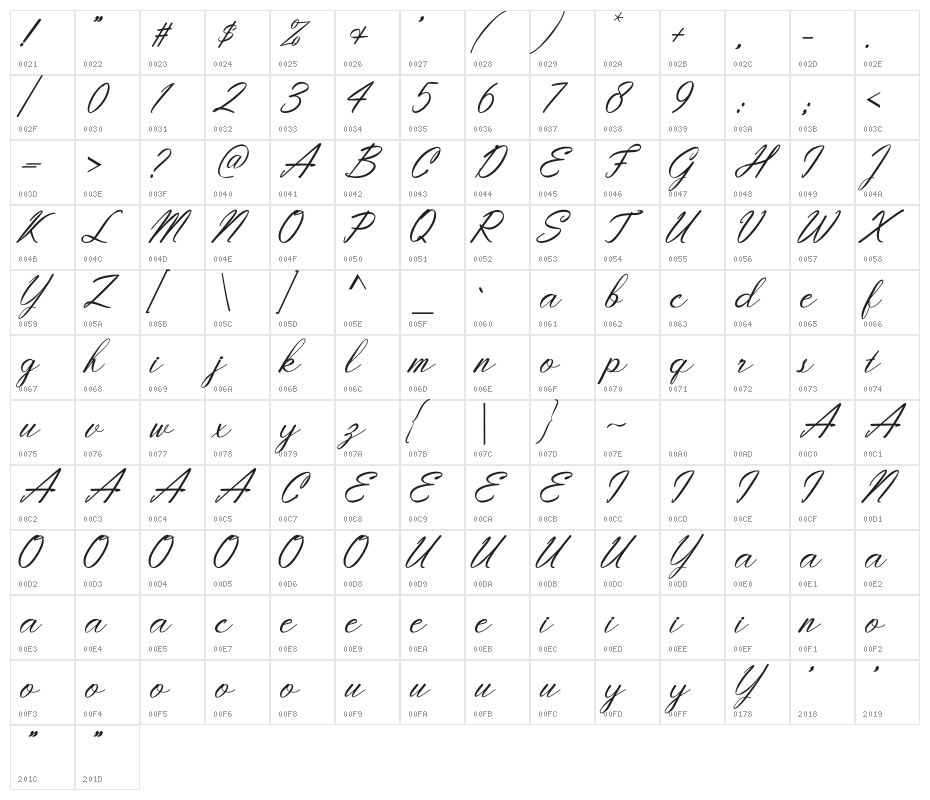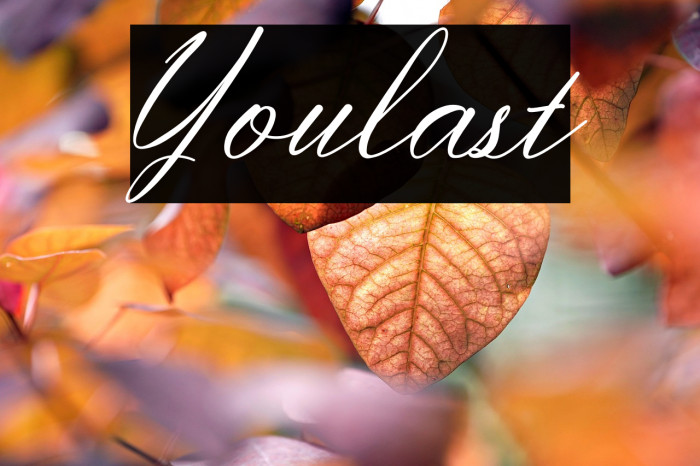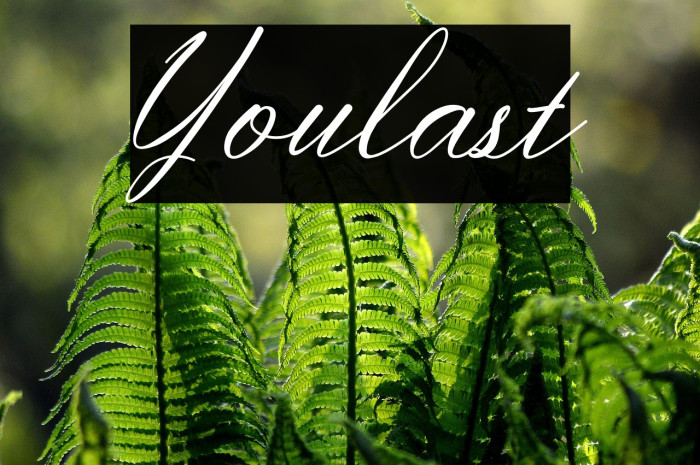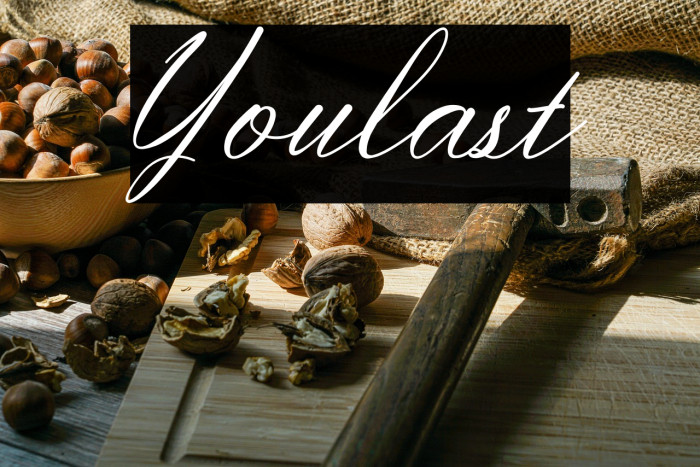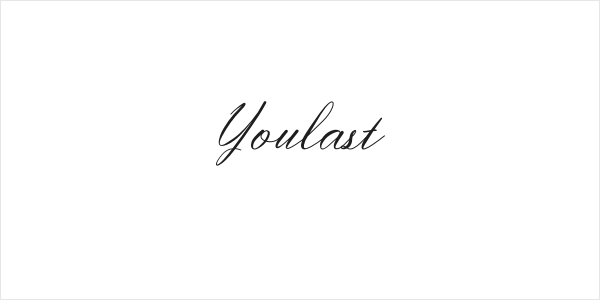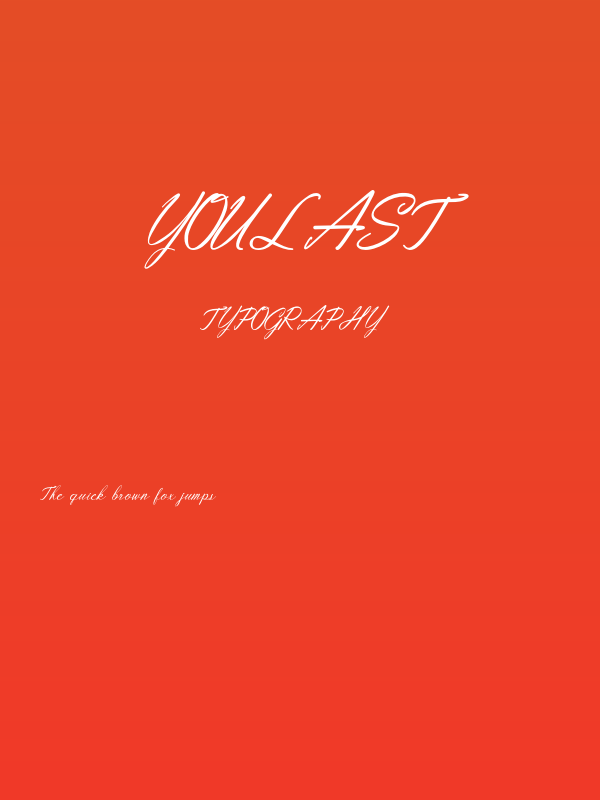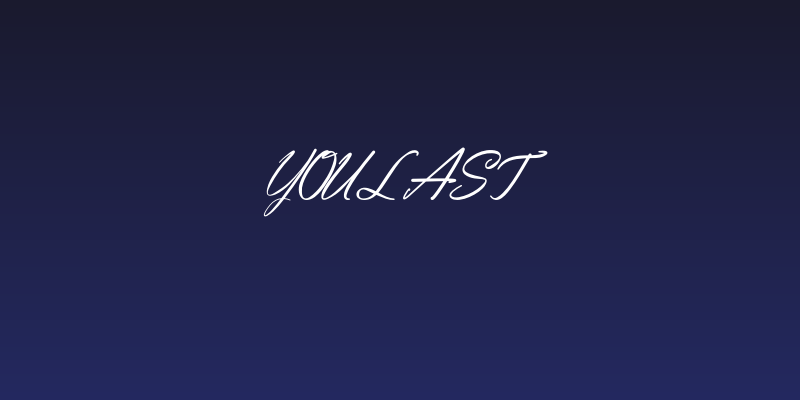
Youlast Font
Youlast Description
This elegant script font features fluid, cursive strokes that mimic the natural flow of handwriting. The uppercase letters are gracefully elongated, while the lowercase letters maintain a consistent, smooth connection. The numerals and special characters complement the overall style with their refined curves and loops. The font exudes a sense of sophistication and charm, making it ideal for projects that require a personal touch. Its balanced weight and moderate contrast enhance readability while maintaining an artistic flair.
| Overall Style | Elegant, Handwritten |
| Use Case | Logos, Invitations, Decorative text |
| Proposed Projects | Ideal for wedding invitations, greeting cards, personal branding, and elegant packaging designs. |